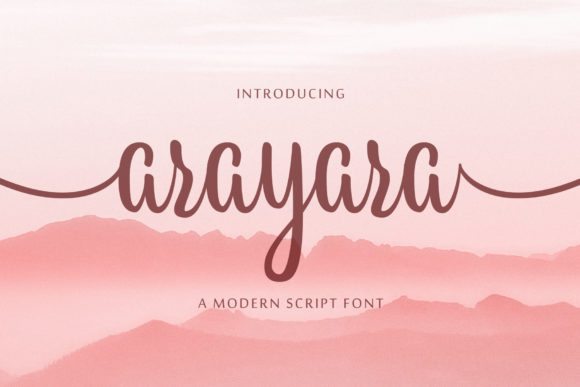
Immerse yourself in a world of elegance and charm with Arayara, the captivating script font crafted by the talented semuthitam. This font exudes a delicate touch, flowing effortlessly like a gentle stream, adding a touch of magic to your creative endeavors.
Arayara's intricate curves and flourishes evoke a sense of romance and femininity, making it the perfect choice for wedding invitations, love letters, and heartfelt messages. Its beauty transcends conventional boundaries, effortlessly enhancing branding, logos, and social media graphics with an air of sophistication.
Unleash your imagination and let Arayara transform your designs into captivating works of art. Whether you're a seasoned designer or a passionate hobbyist, Arayara will elevate your creations to new heights, leaving a lasting impression on your audience.
Step into a world where typography meets elegance and prepare to be swept off your feet by Arayara. Embrace the allure of its delicate strokes and allow your creativity to soar. Experience the joy of creating designs that resonate with grace and charm.
Don't miss this opportunity to add Arayara to your font collection and unlock a world of endless possibilities. Let your designs bloom with elegance and create a lasting impact that will leave your audience spellbound. Discover the magic of Arayara today!